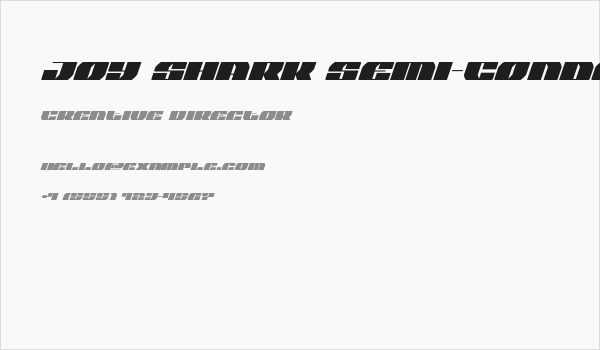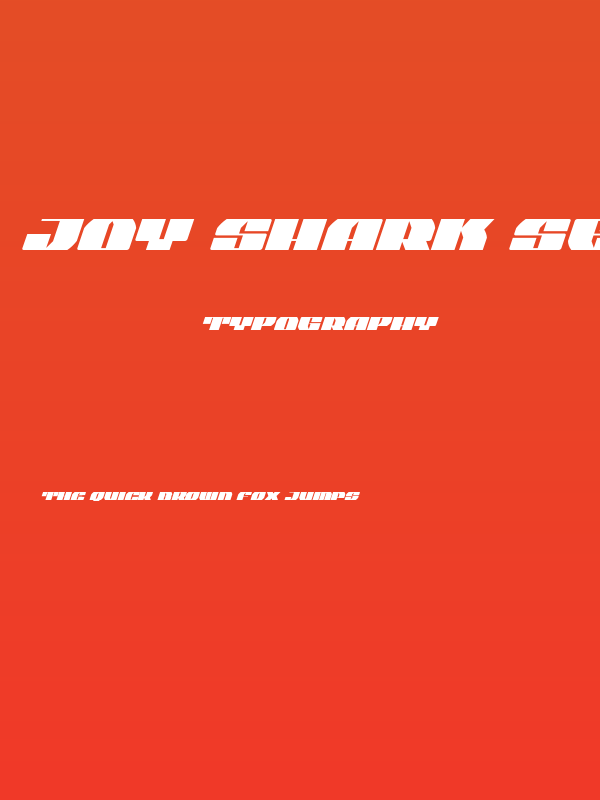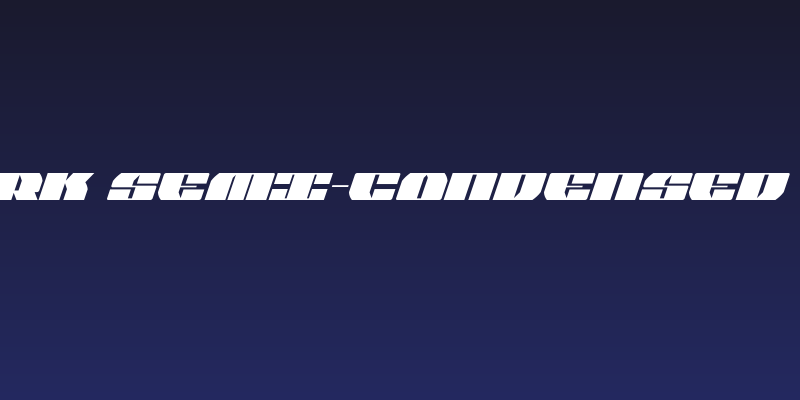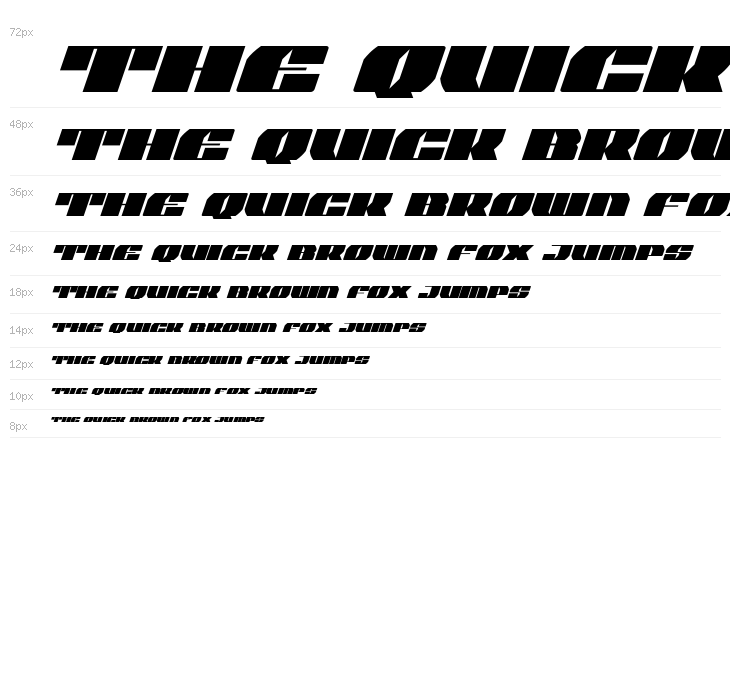
Joy Shark Semi-Condensed Italic Font
Joy Shark Semi-Condensed Italic Description
This font features a bold and dynamic style with a semi-condensed structure, giving it a strong presence. The italic slant adds a sense of motion and energy, making it ideal for impactful designs. The characters are wide and angular, with sharp edges and a futuristic aesthetic. The uppercase and lowercase letters maintain a consistent style, while the numerals and special characters complement the overall design. The font's unique appearance makes it suitable for projects that require a modern and edgy look.